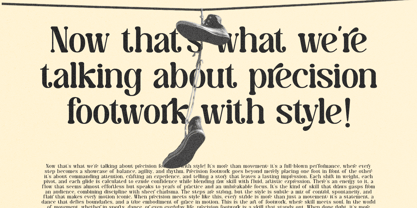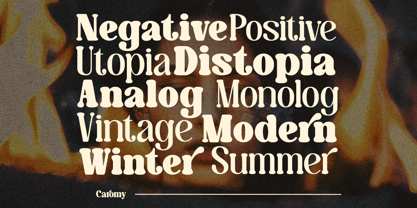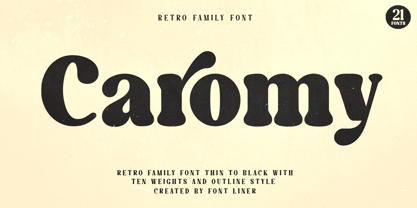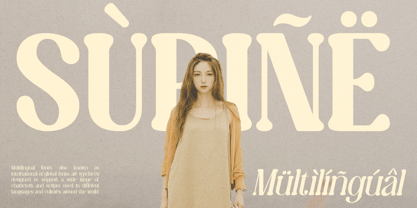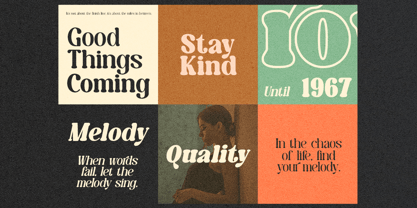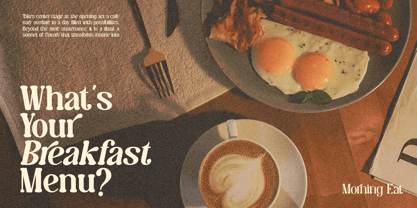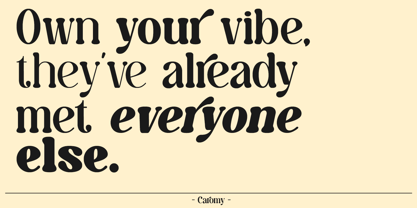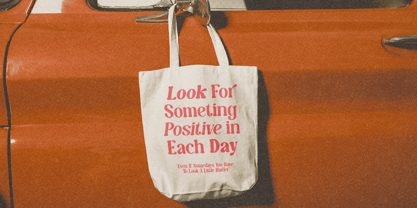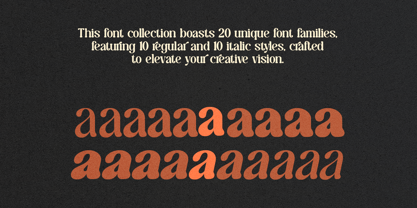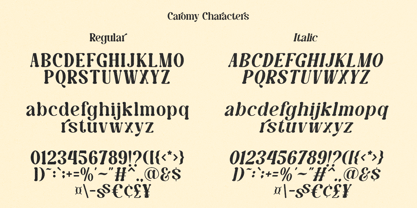
Caromy – Retro Variable Font
Bring a touch of retro charm to your designs with Caromy, a bold and playful typeface that combines vintage aesthetics with modern versatility. Featuring soft curves, chunky forms, and unique letterforms, Caromy is perfect for creating standout headlines, branding projects, posters, logos, and nostalgic packaging.
Caromy is super versatile and easy to use – great for bold headlines, stylish branding, and anything that needs a fun retro twist. Let your designs groove with the charm of Caromy!
Designer: Ghina Luthfiarieska